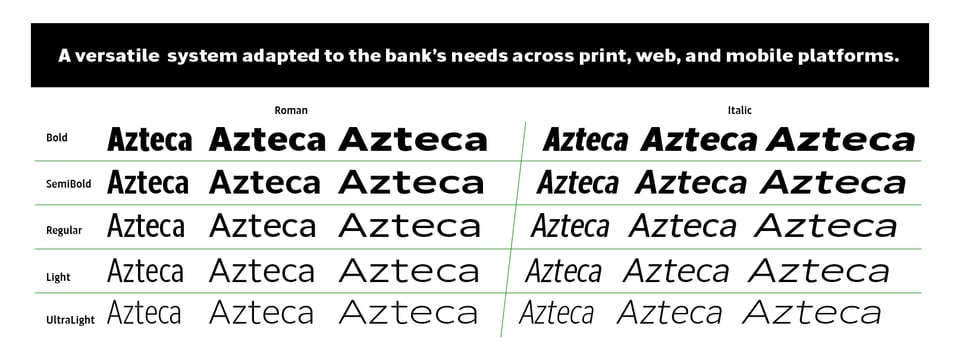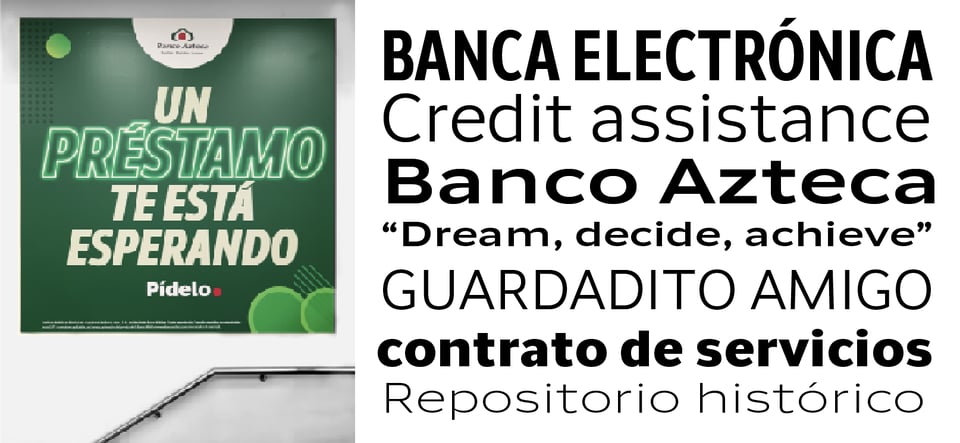
When does a brand need a custom typeface?
Why brands with a strong identity choose custom type to stand out across print and digital platforms.
Not every project needs one, but when your identity is as crucial as your product—when you're not just selling, but telling a story—that's when pre-made fonts start to fall short.
But if your brand:
• competes in a crowded market
• relies heavily on digital touchpoints
• needs to communicate across multiple languages
• or is building a long-term identity
then using the same fonts as everyone else becomes a limitation.
What a custom font actually does
A bespoke typeface gives your brand a distinctive voice—designed for how you communicate. Beyond aesthetics, it helps you: stand out consistently across platforms, control your tone of voice, and scale your brand without losing coherence.
This is why custom type is not just a design choice—it’s a strategic tool.
Azteca Custom Typeface
This is how we made custom type for Azteca and how it helped them stand out.
A versatile sans serif family designed for print and digital platforms, with a fluid system ranging from condensed to bold.
How we approach it at Cocijotype
We don't just design letters—we design voices. First, we listen. We learn about your brand's personality, your audience, and where your product lives—be it on a shelf, a screen, or a sticker.
Then we build. Every curve, weight, and swash is intentional, crafted to make your message unmistakable. We handle the technical depth: character sets for global reach, rigorous testing across mediums, and engineering for flawless performance.
Azteca family in use
A Versatile system adapted to Azteca bank's needs across prompt, web and mobile platforms